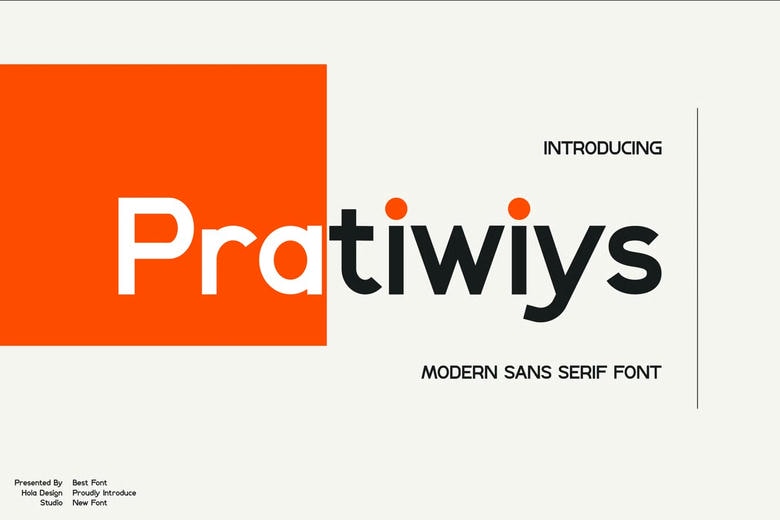
Pratiwiys Font
Pratiwiys is a high quality Sans Serif font that is designed by holadesignstd and is available for free download and personal use. This typeface is perfect for elegant logos, branding, travel promotions, layout magazines, beauty products, product packaging, quotes, or simply as a stylish text overlay onto any background image.
Pratiwiys Sans Serif Font